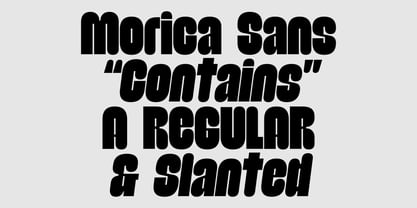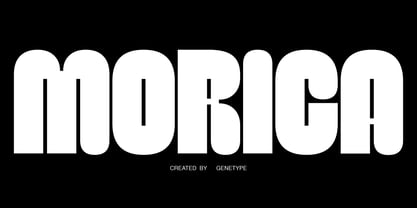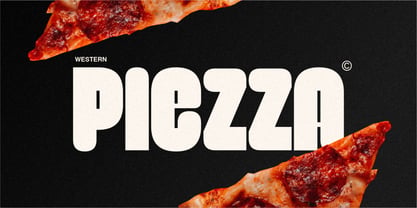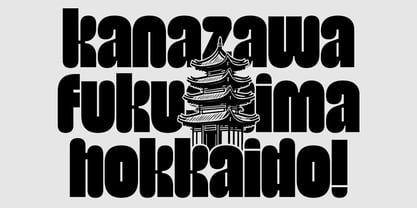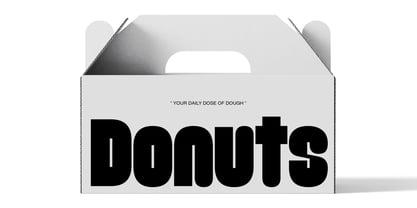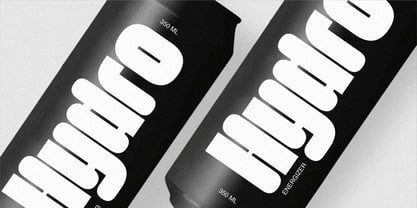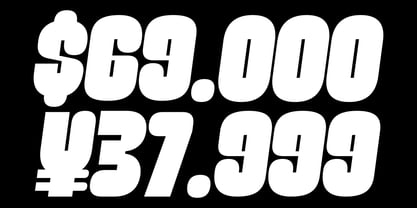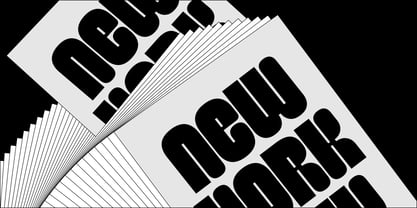
Morica
by Genetype
The Morica Font Family was designed by Bagus Arya Kirana and published by Genetype. Morica contains 2 styles and family package options. More about this family
Morica – Bold Retro Display Font Morica is a bold retro display font with chunky letterforms, smooth rounded corners, and a strong vertical structure. Designed to make a powerful visual statement, Morica brings a vintage-inspired personality that stands out in modern designs. Its tall and condensed proportions allow headlines to look compact yet impactful, making it perfect for posters, branding, editorial titles, packaging, and eye-catching social media graphics. The bold shapes and playful curves create a balance between retro character and modern clarity. Morica works great for branding projects, posters, merchandise, advertising, packaging, and bold visual identities that need a strong typographic presence. Font Features • Uppercase & Lowercase • Numbers & Punctuation • Multilingual Support • Bold Rounded Display Style • Perfect for Headlines & Branding Morica is the perfect choice for designers looking to create bold, retro-inspired typography that grabs attention instantly.
Designers: Bagus Arya Kirana
Foundry: Genetype